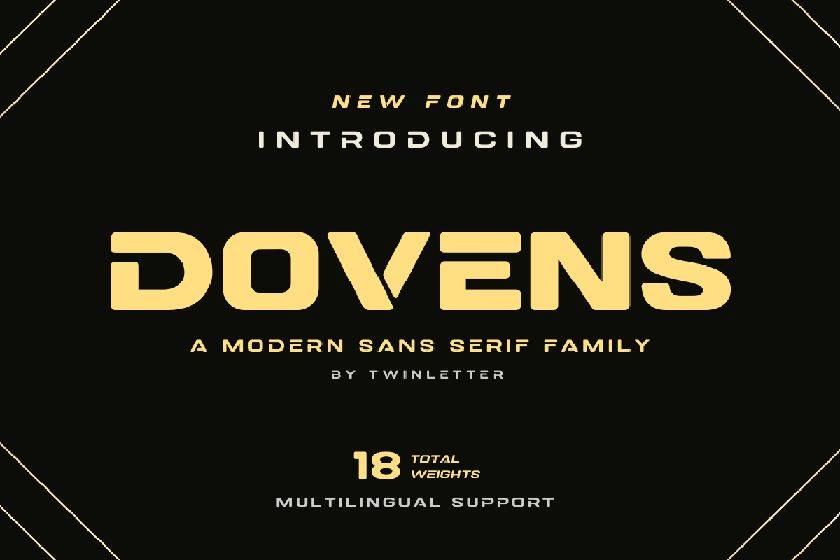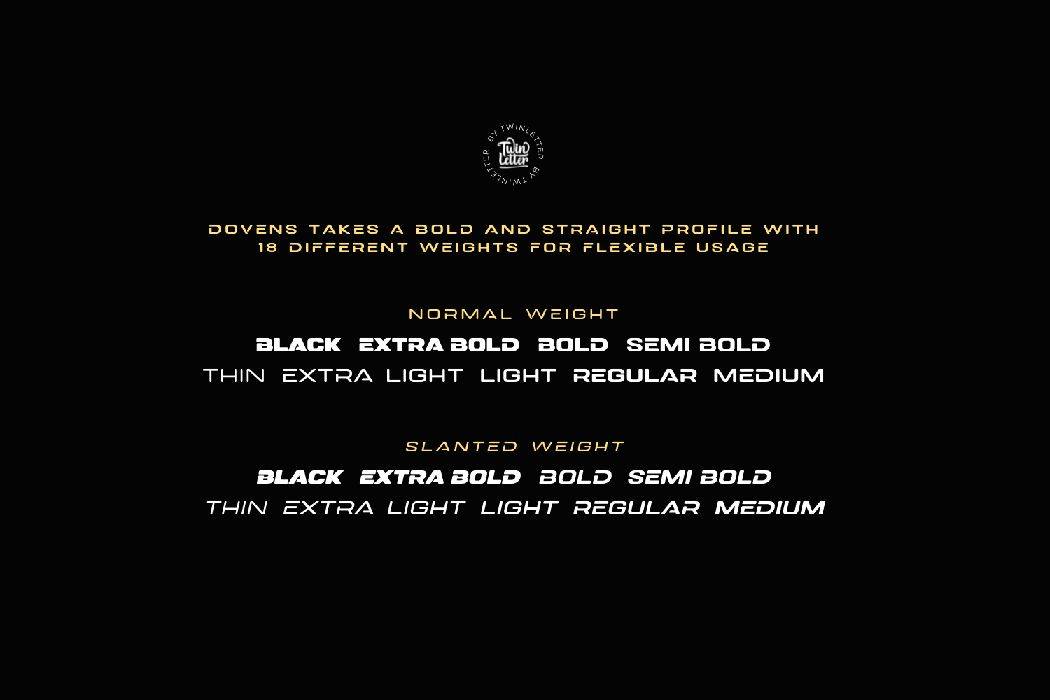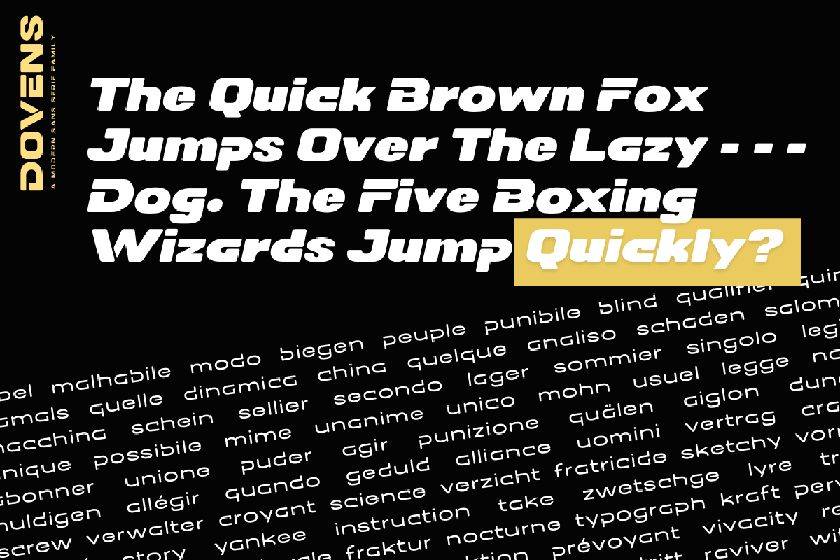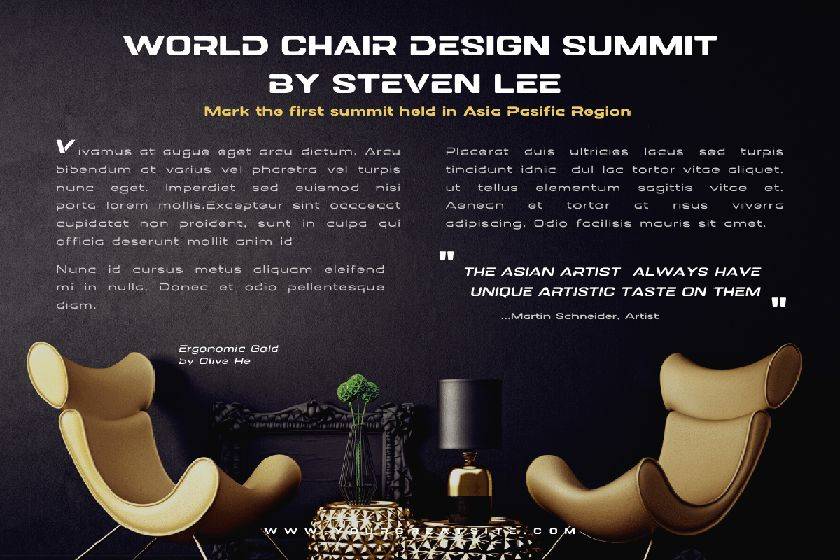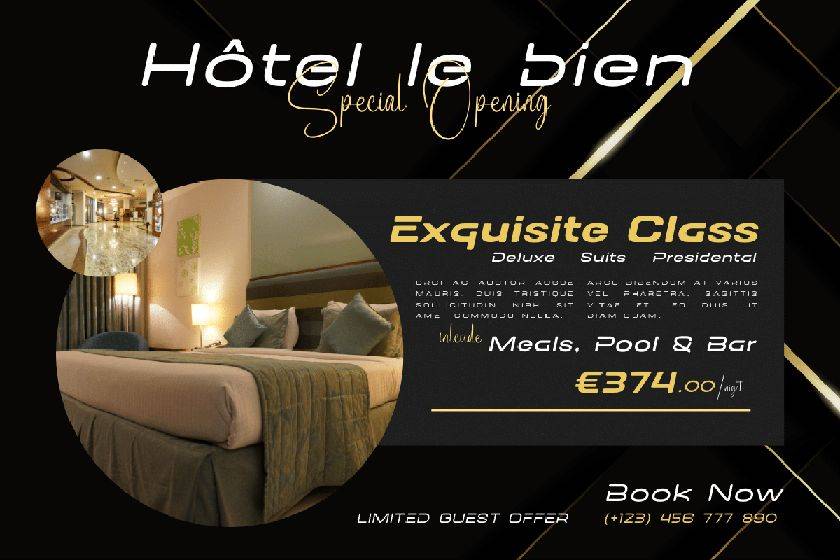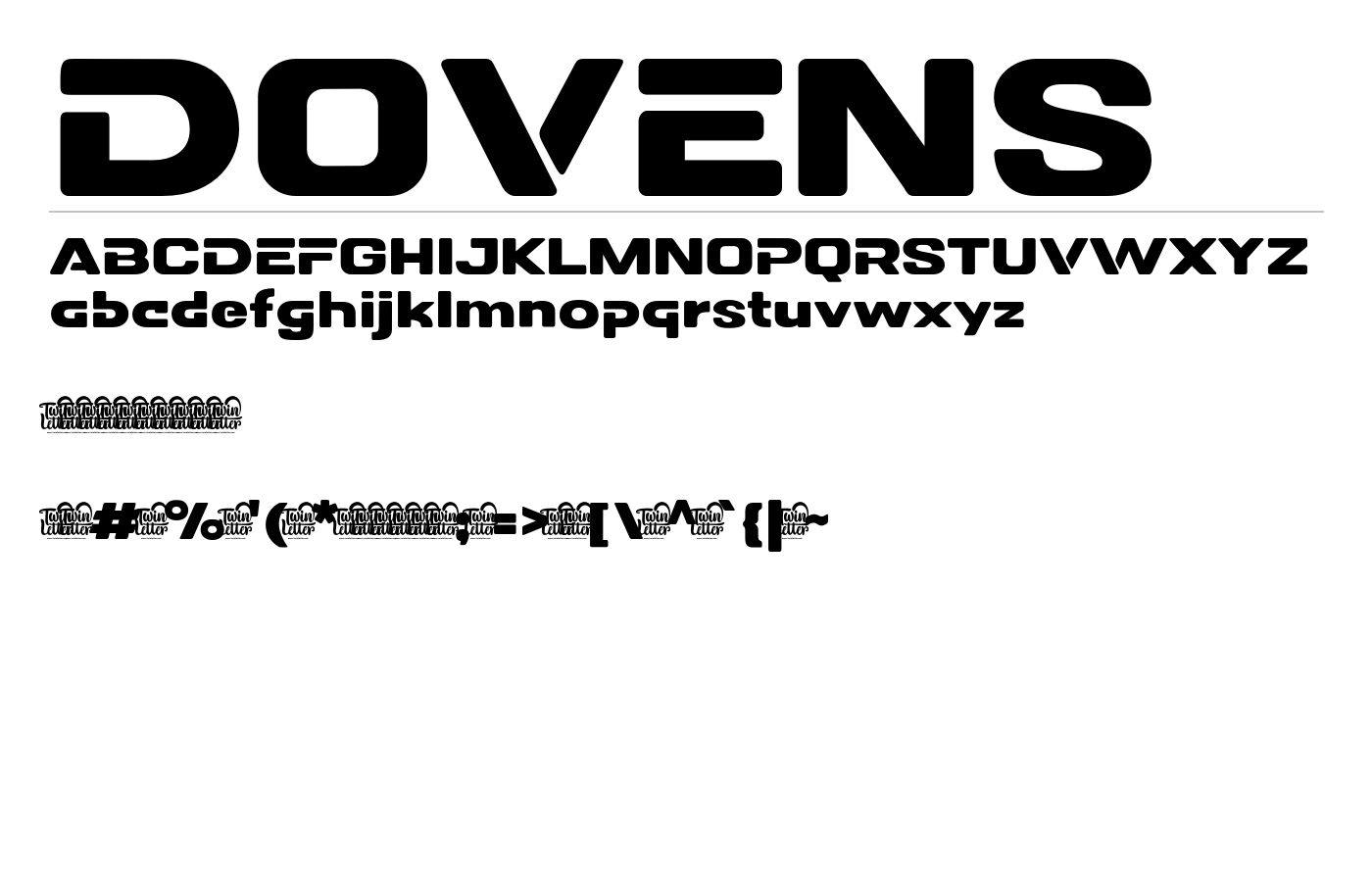
Dovens Font is a bold, modern sans serif with a strong, geometric presence and rounded corners that soften its robust and confident character. Its wide, heavy letterforms paired with uniform stroke weight make it ideal for eye-catching headlines, logos, and branding where impact and readability are key. This font communicates a contemporary, tech-savvy vibe perfect for dynamic and forward-thinking designs.
Dovens Font
About Dovens Font